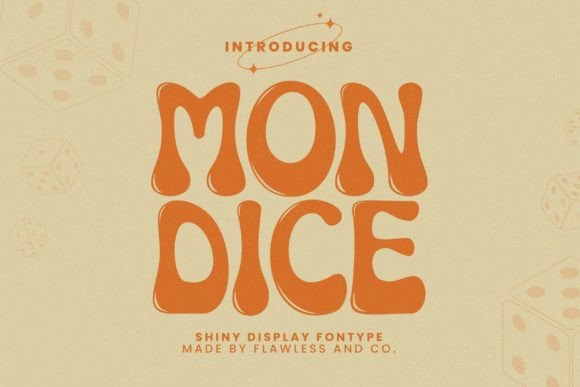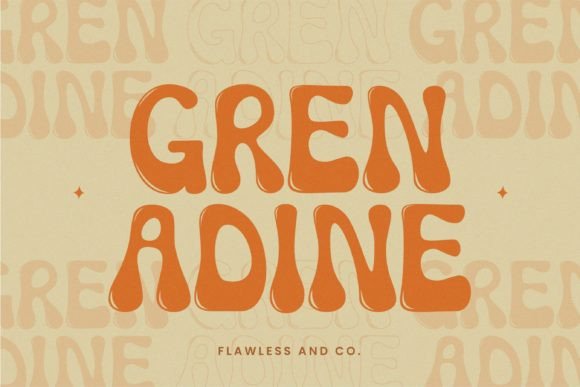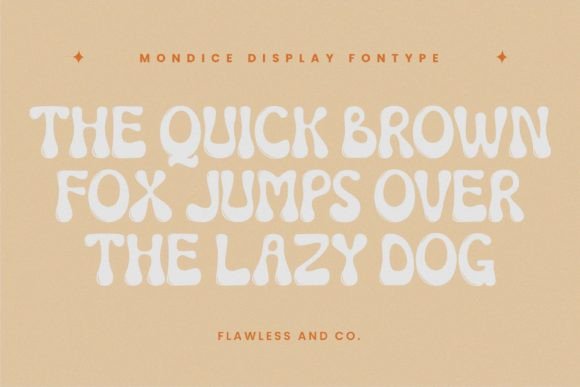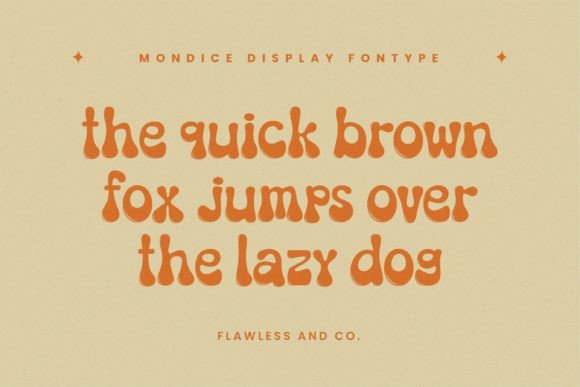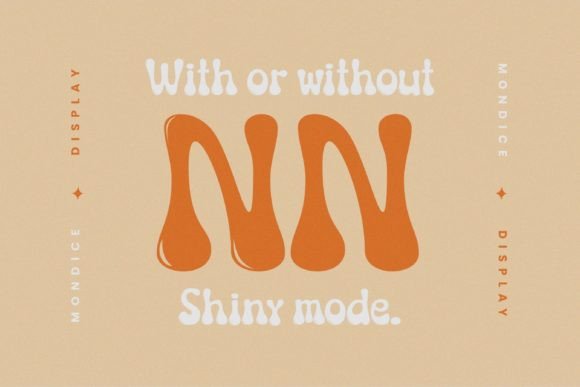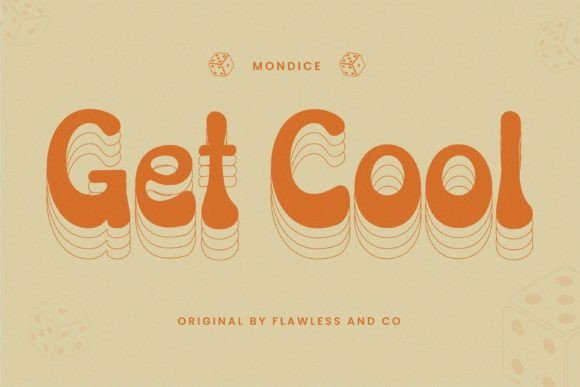
Introduction to Mondice Font
Mondice is a fun retro display font with a shiny and bold style.
This typeface is perfect for your groovy-themed projects such as poster designs, branding materials, t-shirts, business cards, logos, photography, quotes, and more .
Key Features of Mondice Font